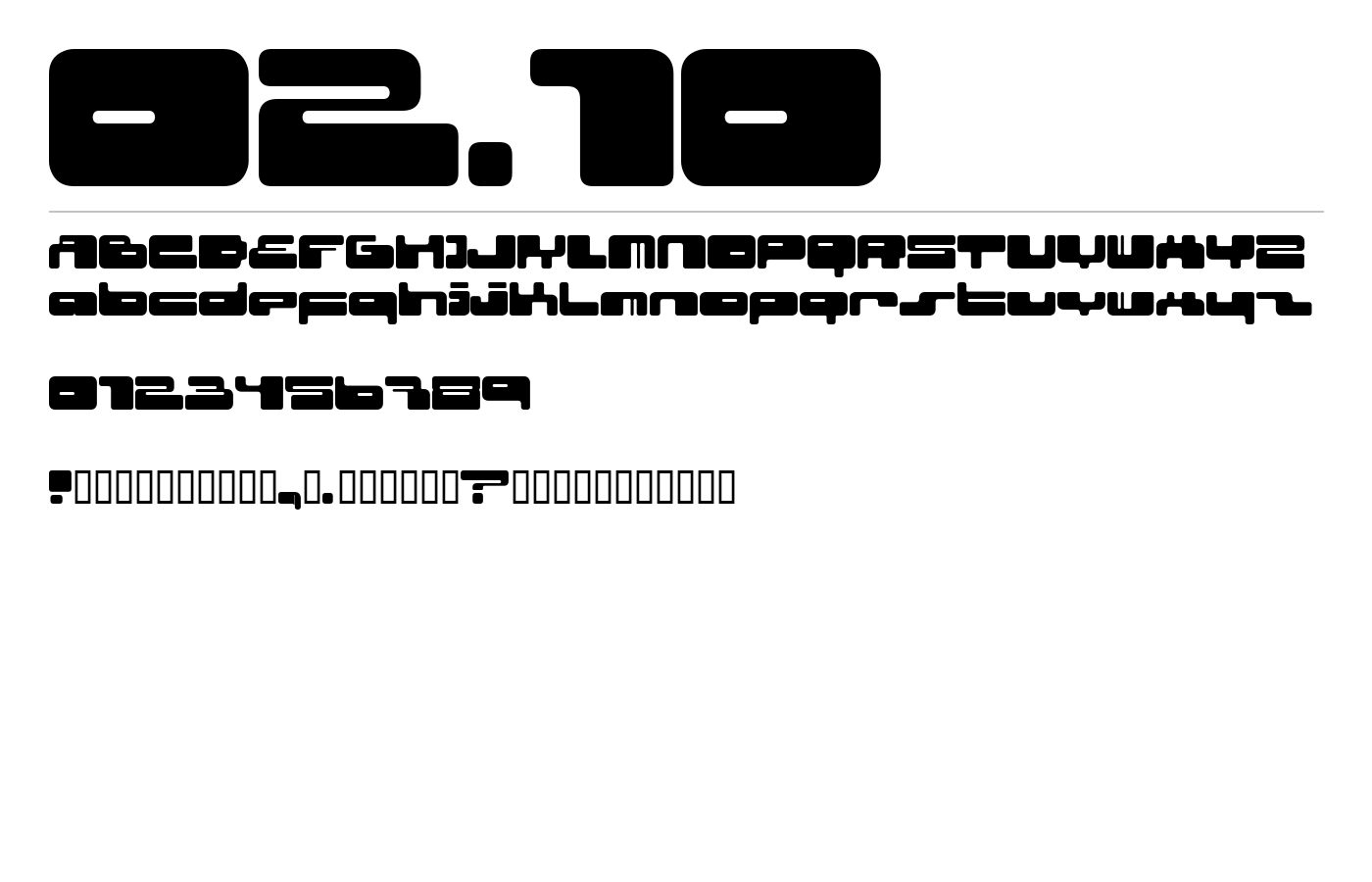
02.10 Font is a bold, geometric sans serif typeface featuring a futuristic and tech-inspired design with thick, uniform strokes and rounded corners that create a striking and modern appearance. Its compact letterforms and strong presence make it ideal for attention-grabbing headlines, logos, and digital interfaces where a contemporary and robust style is needed. This font expresses innovation and strength, perfect for brands seeking a clean yet distinctive visual impact.
02.10 Font
About 02.10 Font